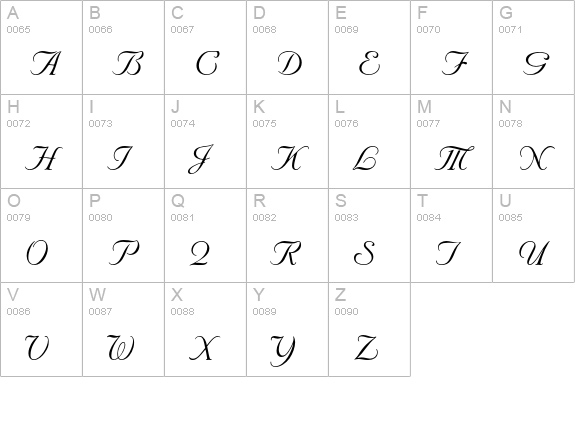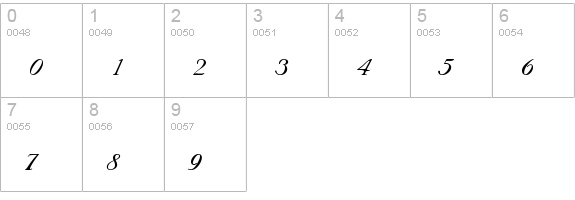
Nuptial Script Font Details
Nuptial Script font is a stunning and elegant typeface that exudes sophistication and charm. With its graceful curves and delicate strokes, this font is perfect for adding a touch of romance to any project. Whether you're designing wedding invitations, love letters, or romantic quotes, Nuptial Script will elevate your work to a whole new level. What's even better is that Nuptial Script is available for free download at FontsMarket.com. This means you can easily access this beautiful font and use it in your designs without any cost. So go ahead, download Nuptial Script today and add a touch of romance to your creations!